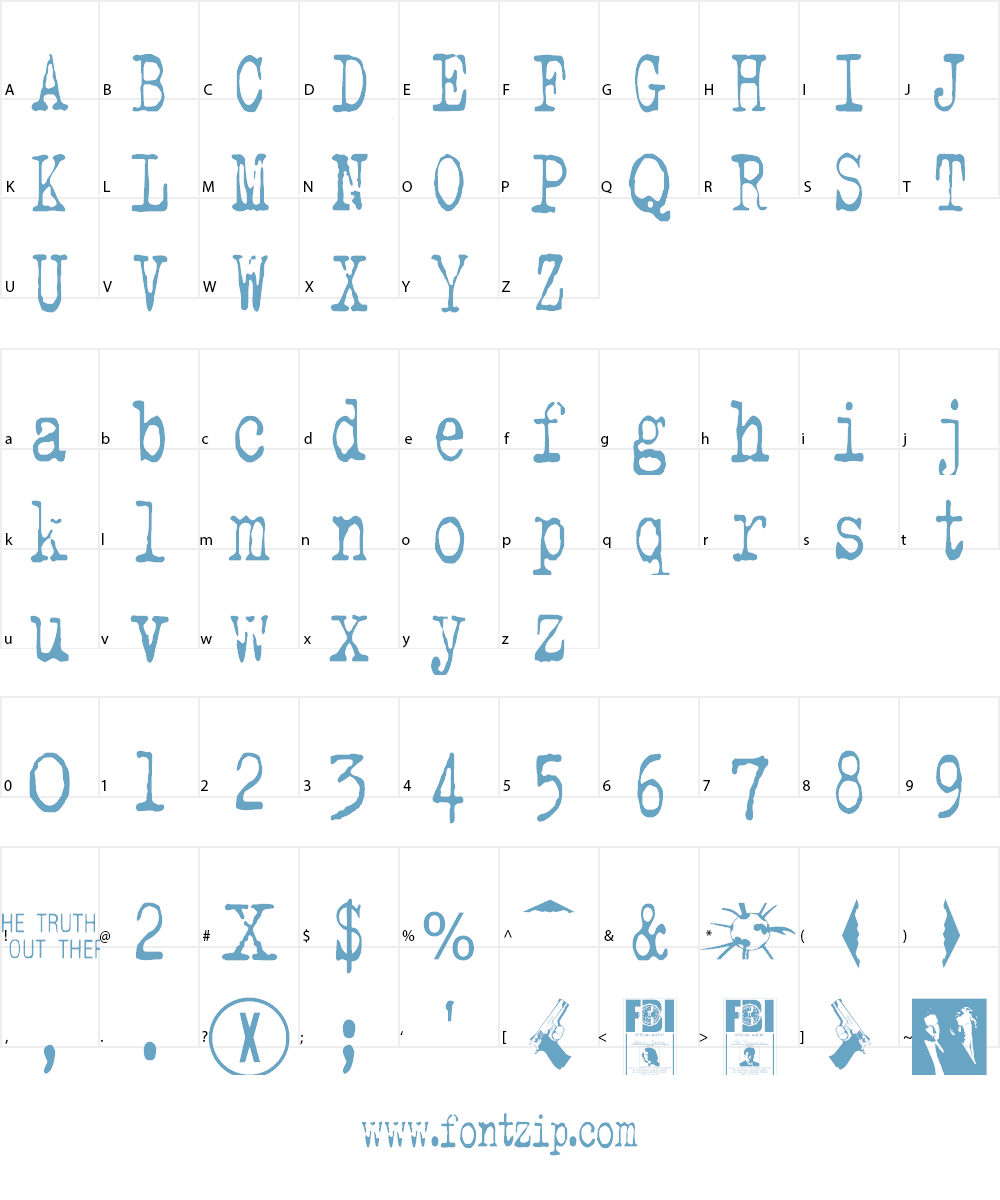
I have always wanted to create a real The X-Files fan-font based on the 9 season TV show, and the 2 feature films already released, so with the advent of the third movie to complete of this Trilogy, I give to you my latest font.